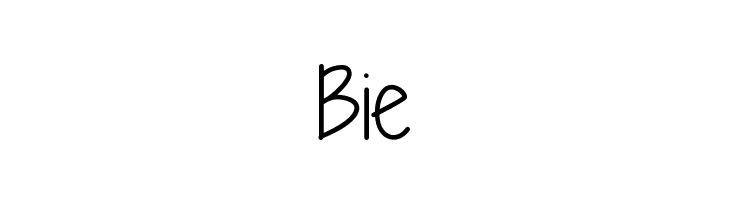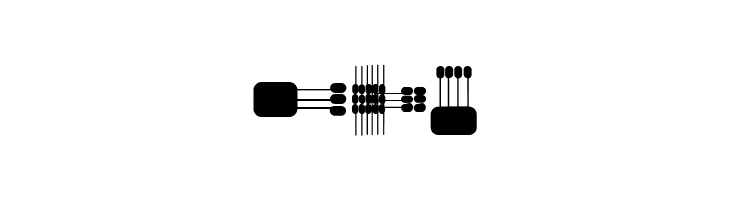
( Fonts by Sophie Fraser )
A bold, bone-themed font ideal for spooky or Halloween projects.
( Fonts by Bluestype Studio )
A playful handwritten font with consistent strokes and a whimsical charm.
An abstract design of lines and shapes, not a traditional font.
A bone-themed decorative font perfect for spooky designs.
( Fonts by Martin Steiner )
A bold, decorative font with characters formed by stone-like shapes.
( Fonts by Feri Fauzi )
A bold, bone-like font with a jagged, textured design ideal for spooky themes.